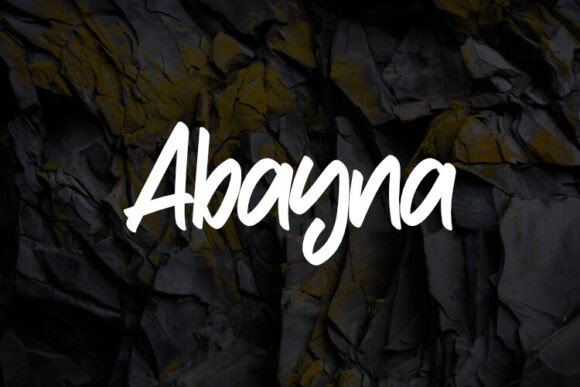
I’ll never forget the time I was working on a project for a client’s t-shirt design. I had the concept, the colors, and the graphics all sorted out, but I was stuck on one thing: the font. I scrolled through pages of fonts, tried out a few, but none seemed quite right. That’s when I stumbled upon Abayna Font. It was like a breath of fresh air – versatile, modern, and perfect for the job. In this article, I’ll share my experience with Abayna, its features, and how you can make the most of it in your designs.
Abayna Font: The Ultimate Design Companion
Abayna is more than just a font; it’s a design solution for crafters, hobbyists, and professional designers alike. Its clean lines and modern aesthetic make it perfect for a wide range of applications, from t-shirts to business cards. The best part? It’s incredibly versatile and works seamlessly across all design platforms and software.
What I Love About Abayna Font
- ✨ Universal Applicability: Whether you’re designing for web, print, or merchandise, Abayna fits right in.
- 🎨 Aesthetic Appeal: Its modern look adds a professional touch to any design.
Honest Review: The Not-Perfect-but-Almost Section
While Abayna has won me over, it’s not without its quirks. Here are a few things to keep in mind:
- ⚠️ Limited Extras: Don’t expect a vast array of extra features or styles – Abayna keeps it simple and focused.
- 🤔 Glyph Variety: While it has a solid set of standard glyphs, it might not have every special character you need for specific projects.
- Explore OpenType features like ligatures and stylistic alternates to enhance your design.
Exploring OpenType Features
Abayna supports OpenType features, which can elevate your typography. Look for:
- Ligatures: Combine letters for a unique look.
- Stylistic Alternates: Swap out glyphs for varied aesthetics.
The Story Behind Abayna Font
Abayna was created with the designer in mind – someone who needs a reliable, versatile font that can keep up with their creative demands. Its design draws inspiration from modern typography trends, focusing on readability and aesthetic appeal. The goal was to create a font that feels at home in any design, from casual t-shirts to professional branding.
| Is Abayna suitable for body text? | While Abayna is versatile, its primary design is for headings and titles. For body text, consider readability at smaller sizes. |
| Does Abayna support OpenType features? | Yes, Abayna supports OpenType features such as ligatures and stylistic alternates, enhancing its typographic capabilities. |
Abayna Font has become a staple in my design toolkit, and I’m confident it can do the same for you. Its blend of modernity, versatility, and ease of use makes it an excellent choice for any designer looking to elevate their typography.